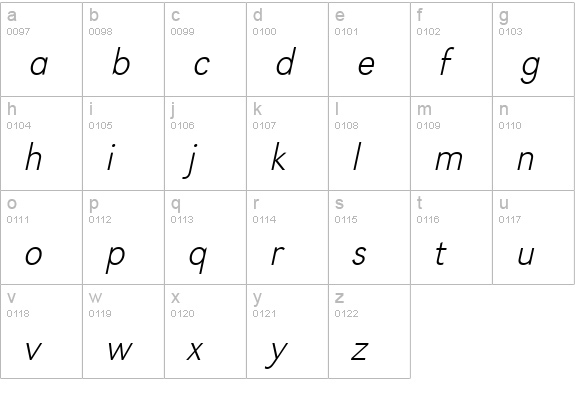
GroteskStd-Xlight-Italic is a distinctive, italic variant in the GroteskStd typeface family \xE2\x80\x94 well suited to design and typography projects.
GroteskStd-Xlight-Italic is a modern and sleek typeface that exudes sophistication and elegance. With its delicate and stylish italic design, this font is perfect for adding a touch of flair to any project. The slender and graceful letterforms make it ideal for use in fashion magazines, luxury branding, and upscale invitations. What sets GroteskStd-Xlight-Italic apart is not only its aesthetic appeal but also its versatility. Whether you're designing a website, creating a logo, or working on a print project, this font will elevate your design with its refined and polished look. And the best part? GroteskStd-Xlight-Italic is available for free download at FontsMarket.com. So you can easily access this premium font without breaking the bank. Don't miss out on the opportunity to enhance your designs with the elegance and sophistication of GroteskStd-Xlight-Italic. Download it now and take your projects to the next level!